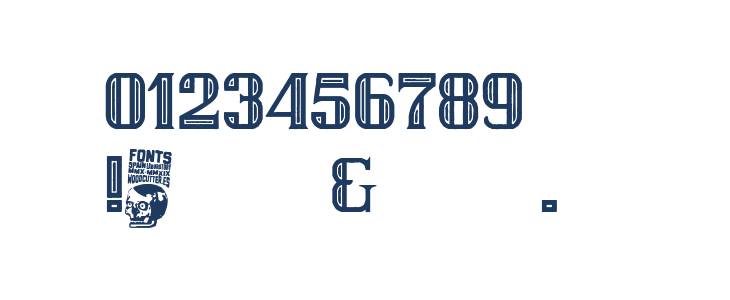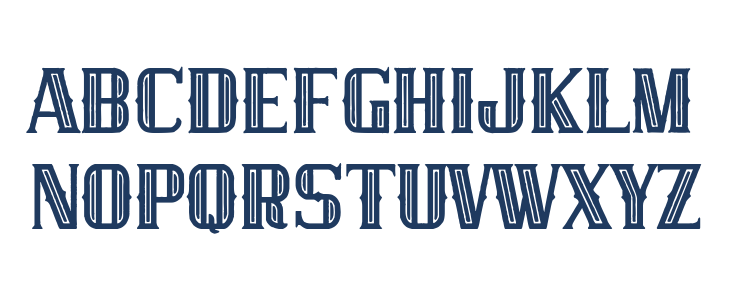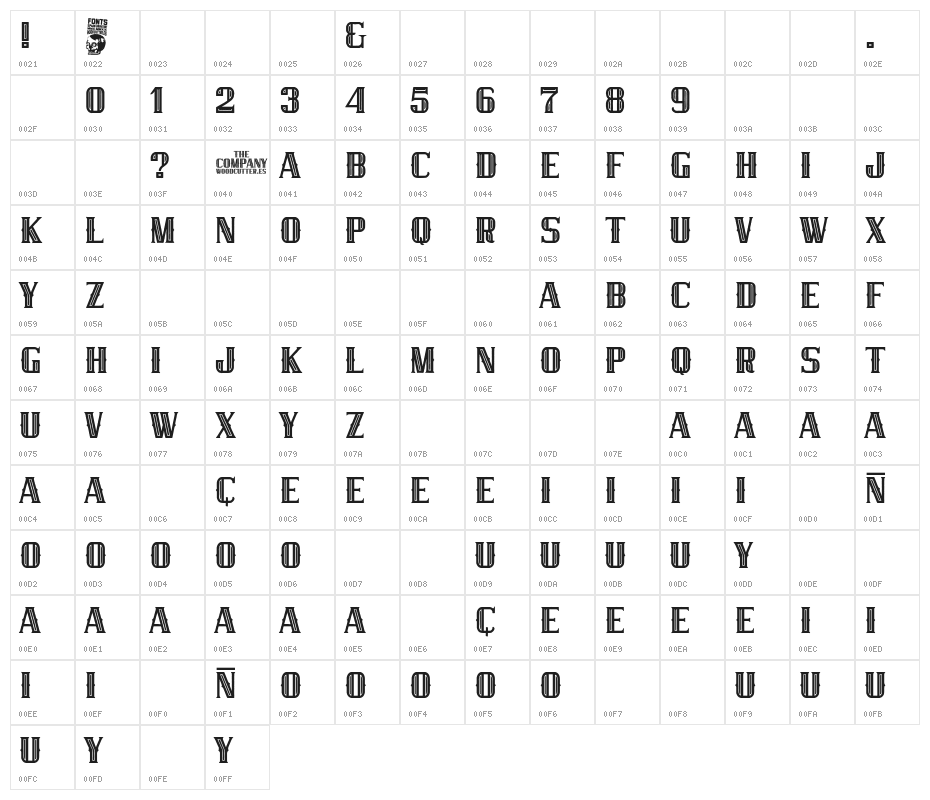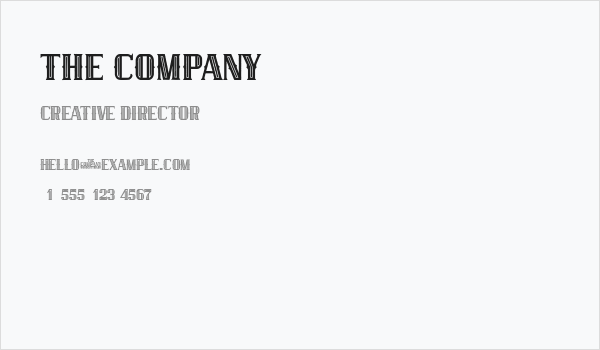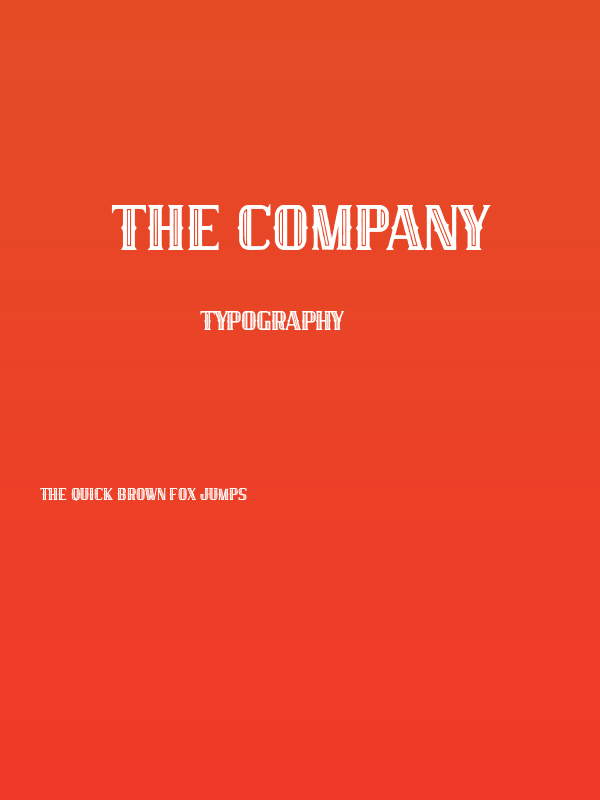
The Company Font
The Company Description
A bold, decorative display font with strong geometric shapes, double-line strokes, and a vintage, industrial feel. The characters are uppercase only, with thick outlines and inner line details, giving a dimensional, engraved appearance.
| Overall Style | Vintage, Decorative, Industrial |
| Use Case | Headlines, Logos, Posters, Signage |
| Proposed Projects | Posters, signage, branding, event invitations, vintage-themed designs, logos. |